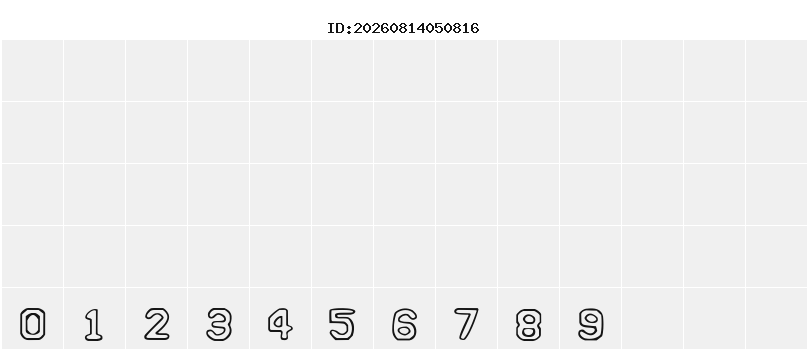
Surveillance Preview
• Font Name: Surveillance
• Full Font Name: Surveillance-DateAndTime
• Manufacturer: Florian Hei? . Published by FontShop International. FUSE Release
About Surveillance.ttf
Surveillance.ttf is a modern, elegant sans-serif font designed for ultimate readability and visual harmony. Perfect for branding, headlines, web design, and print materials.